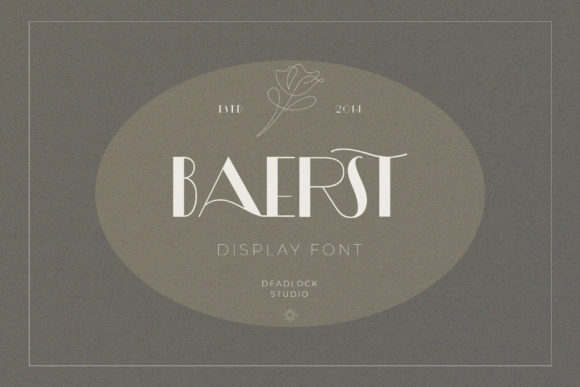
Experience the allure of Baerst Font, a captivating display font that exudes elegance and distinction. Crafted by the skilled hands of rhegajuliandy, Baerst is a visual masterpiece designed to elevate your branding, labels, and titles to new heights of sophistication. Immerse yourself in its assertive personality, where sharp lines and graceful curves dance together in perfect harmony. Baerst is not just a font; it's an artistic expression that breathes life into your creative endeavors.
Unleash the boundless potential of Baerst Font, the ultimate choice for minimalist logos. Its clean and uncluttered design allows your brand's message to shine through with clarity and impact. Whether you're a seasoned designer or just starting out, Baerst will effortlessly elevate your creations. With its PUA encoding, accessing the full repertoire of glyphs and swashes is a breeze, empowering you to add intricate details and flourishes that make your designs truly unforgettable.
With Baerst Font, you'll embark on a journey of creativity, where imagination knows no bounds. Its versatility extends beyond logos, making it a perfect fit for branding, posters, social media graphics, and any project that demands a touch of sophistication. Let Baerst be your creative companion, guiding you to design masterpieces that leave a lasting impression.
Indulge in the beauty of Baerst Font and unlock a world of design possibilities. Its elegant strokes and distinctive character will captivate your audience, leaving them mesmerized by the sheer brilliance of your creations. Experience the transformative power of Baerst Font today and witness your designs blossom into works of art.